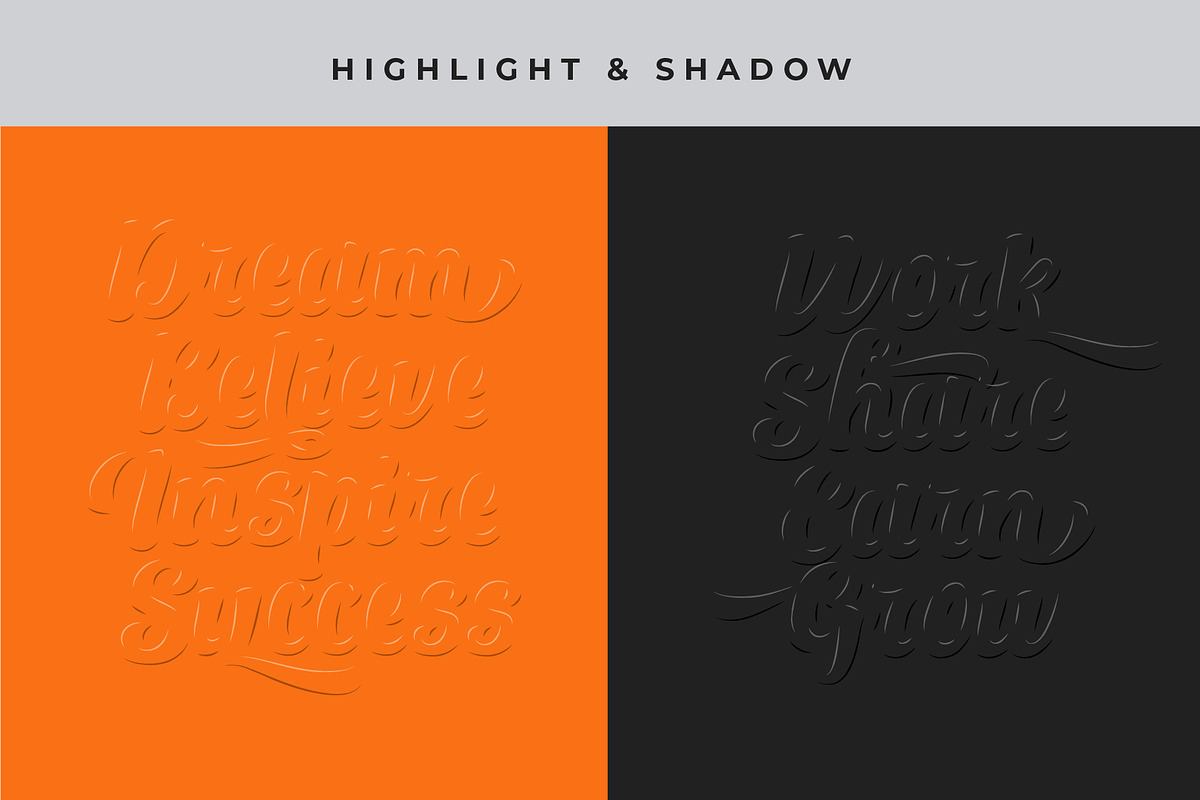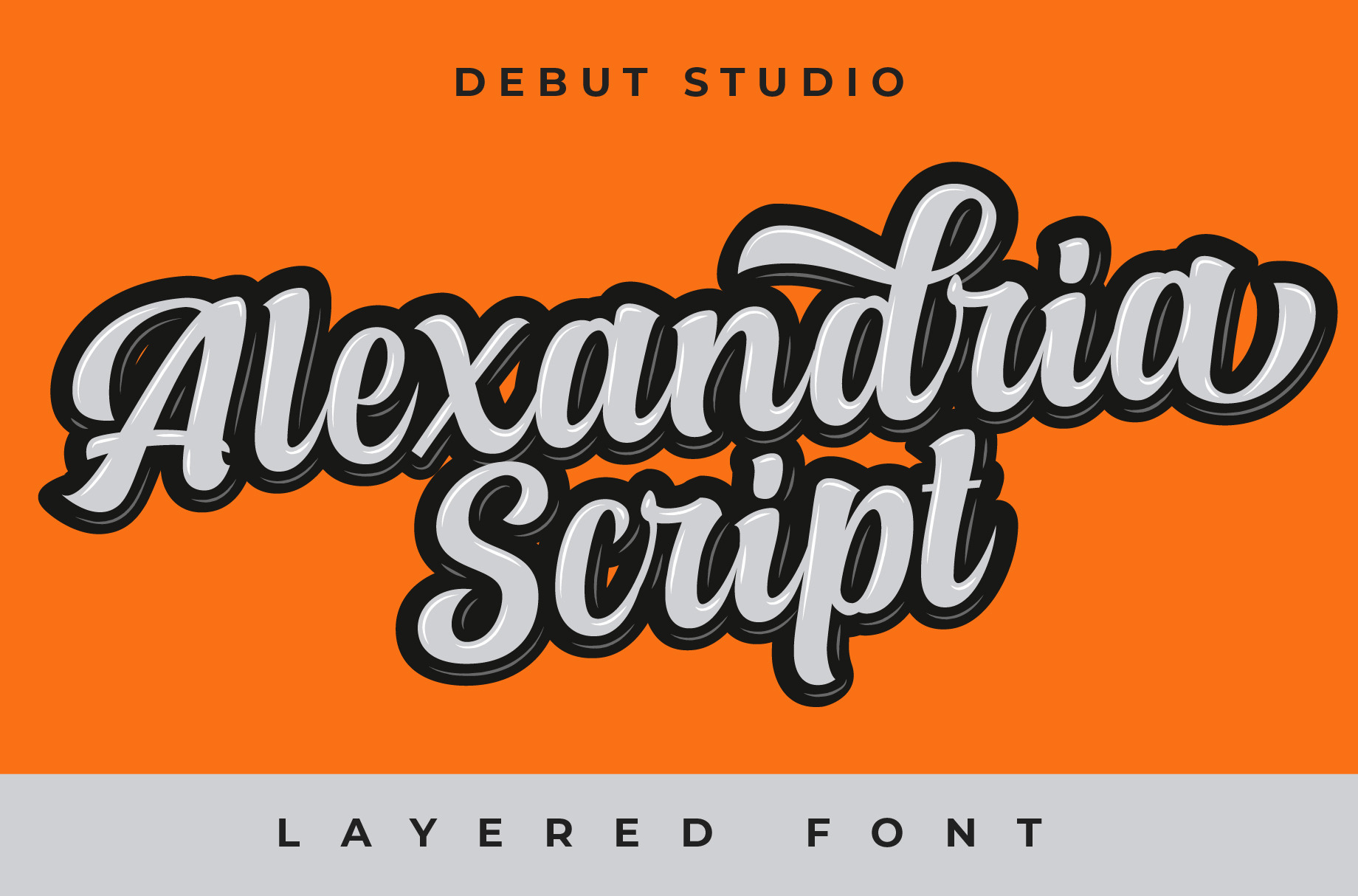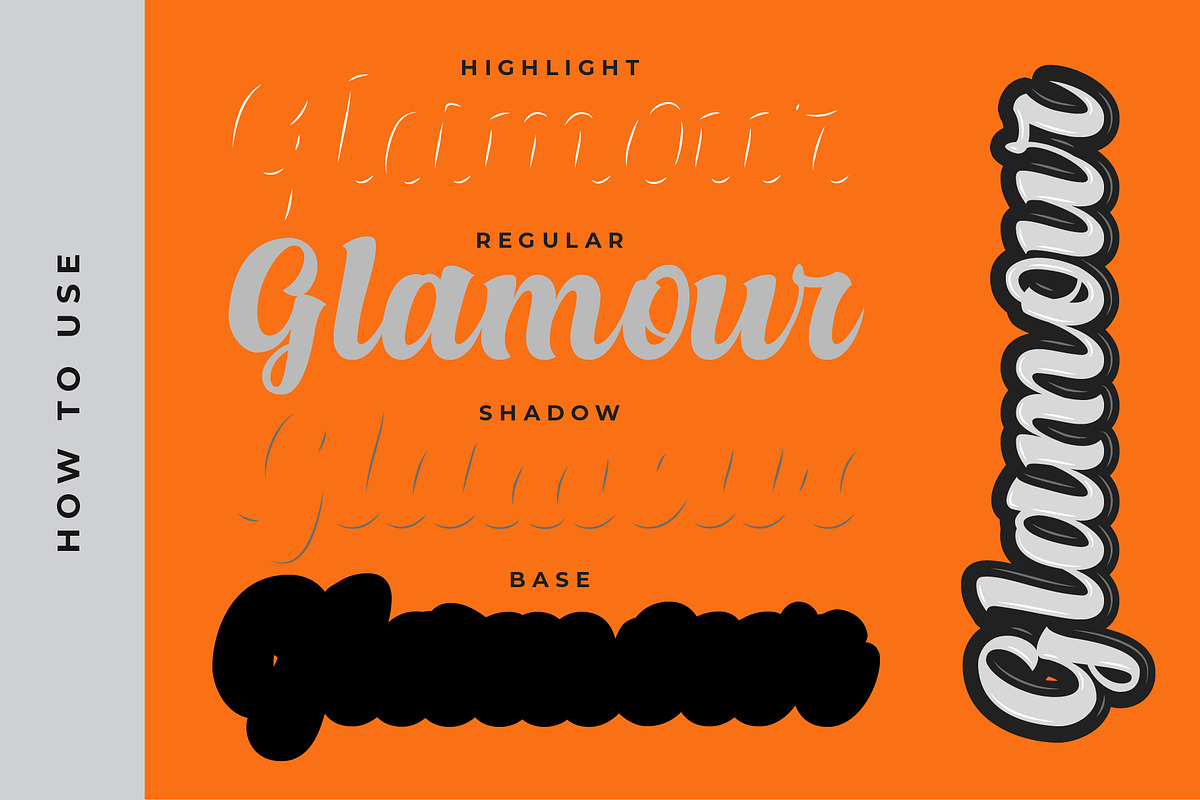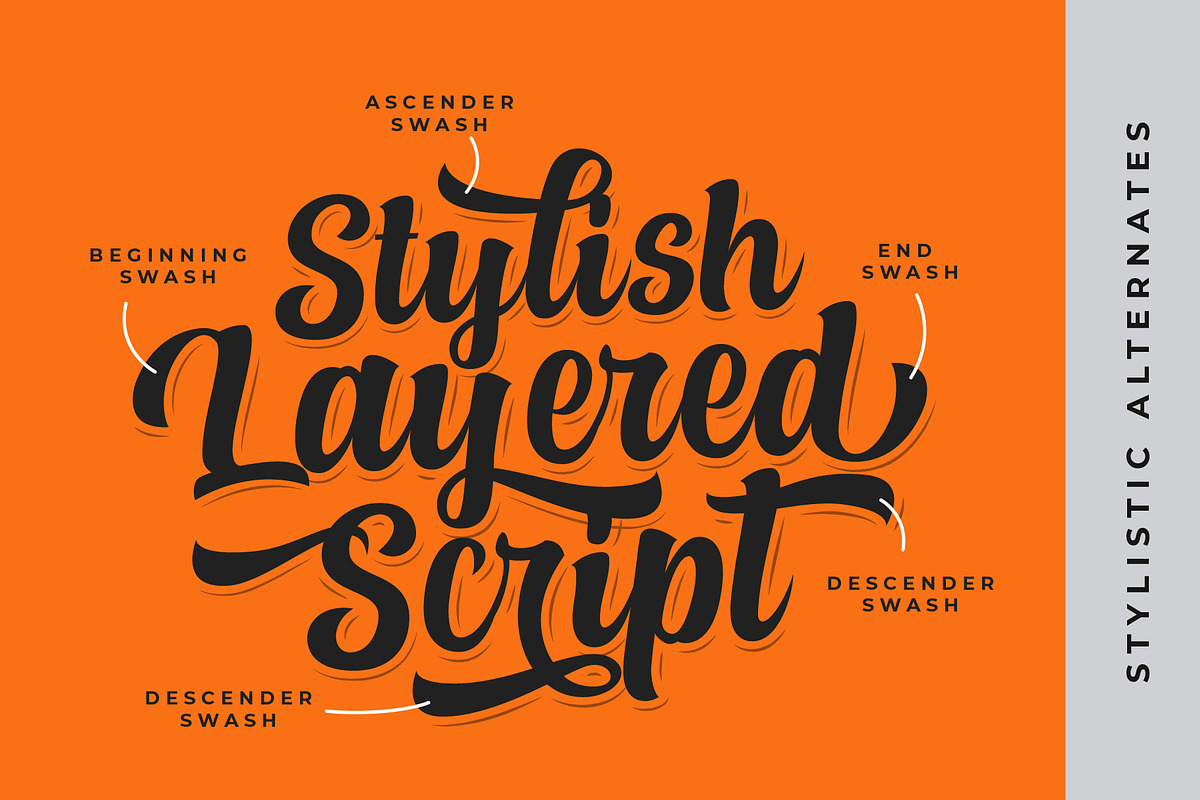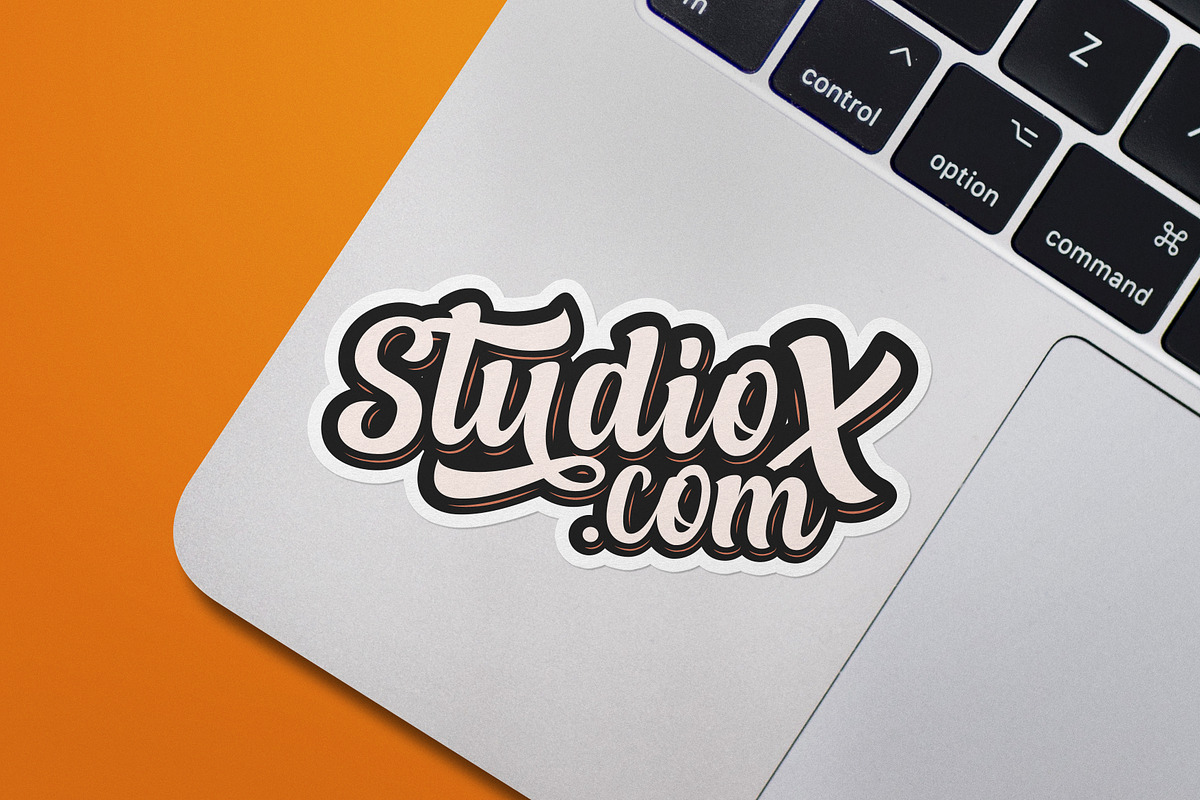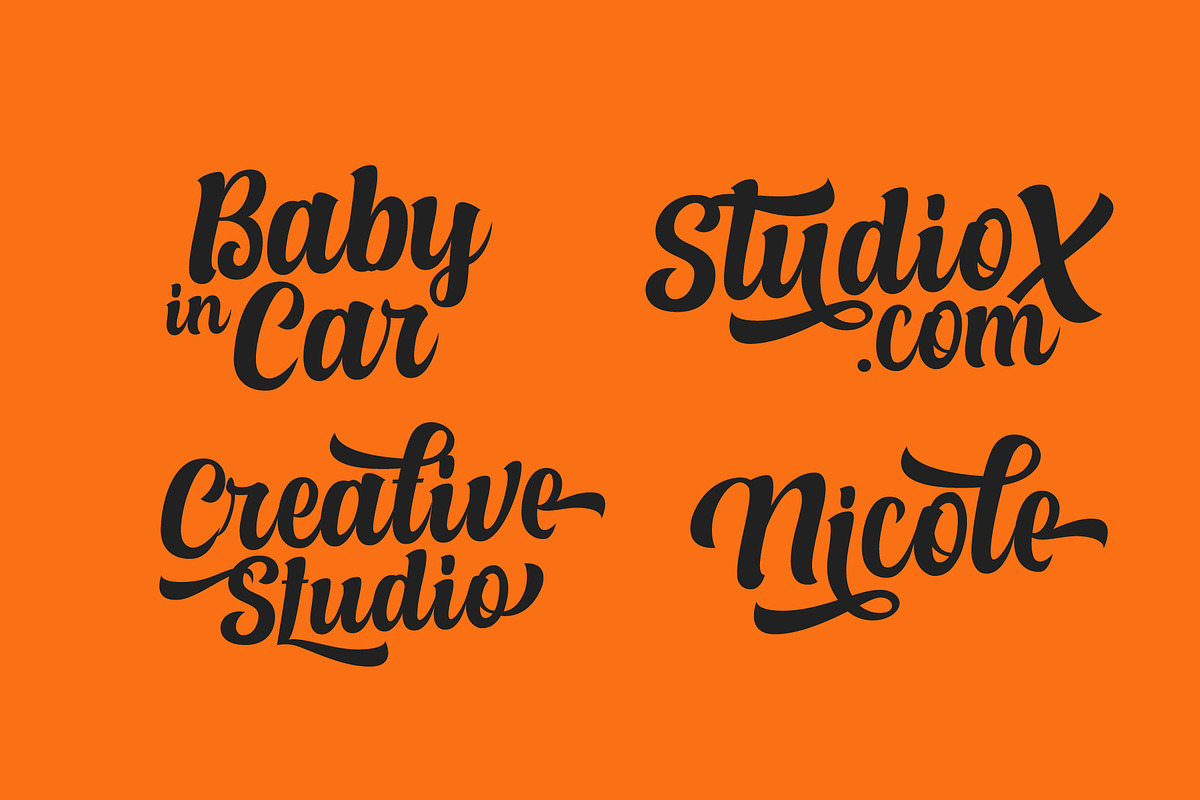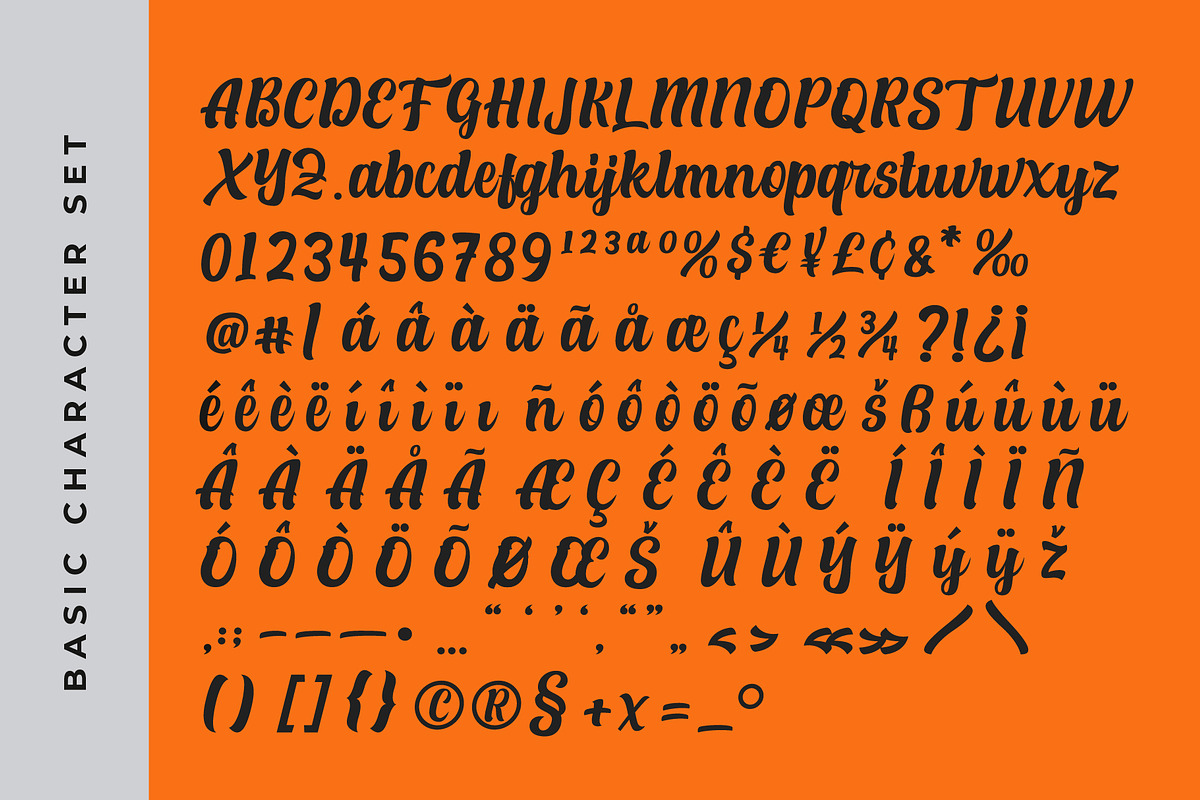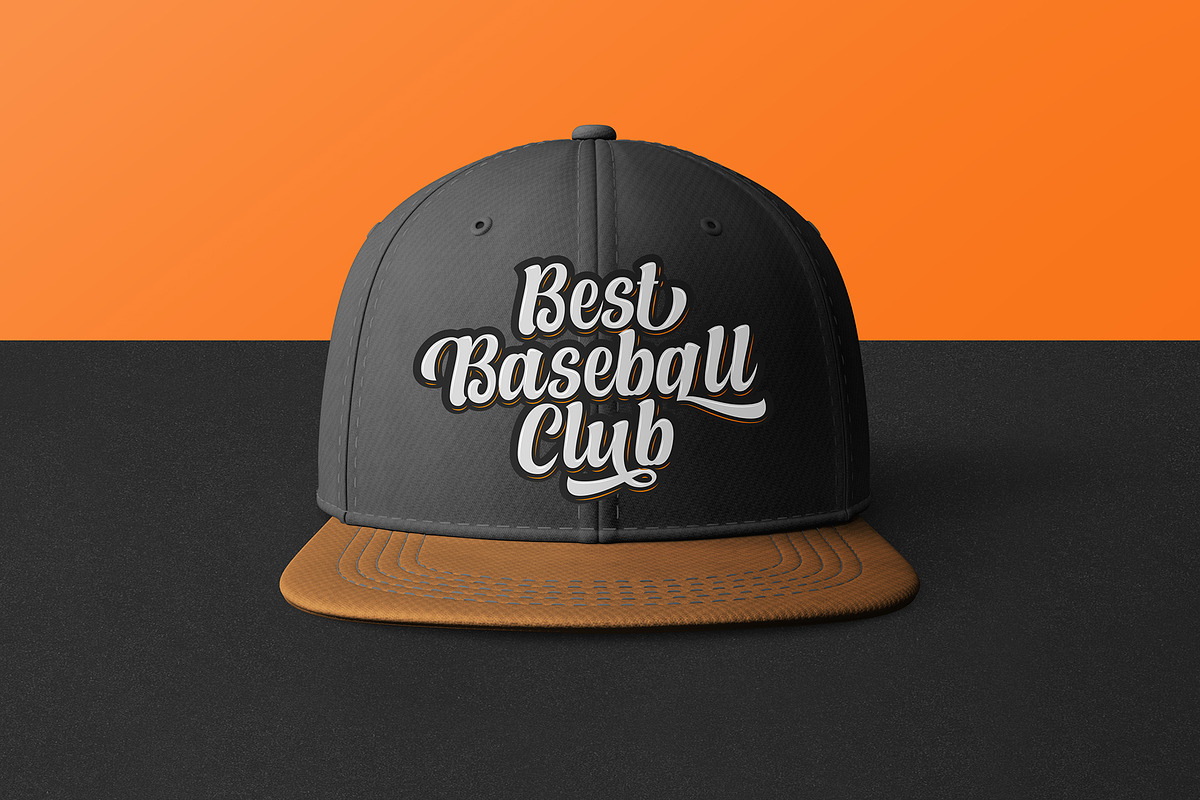
Alexandria Script Layered Fonts
ALEXANDRIA SCRIPT NEW UPDATE 2021 to thank those of you who have bought and used this font, I have finally completed an update for quite a few changes to Alexandria Script, this font was made in 2016 and I realize that there are many mistakes both in terms of letter anatomy, consistency and the finishing process, Therefore, I am proud to present the Alexandria Script New Update 2021, cleaner, more consistent, and more attractive than ever. but for those of you who are too in love with the old version, I will still include this font in the old version thank you
Alexandria Script has 4 fonts, the four fonts are used with layers method, so it can generate interesting fonts to see, you no longer need to worry about how to make effect on the text. This font is suitable for young, passionate design, such as logo design, t-shirts, branding, and various other design purposes.
- Alexandria Script Base
- Alexandria Script Regular
- Alexandria Script Shadow
- Alexandria Script Highlight
- Alternate Stylistic Character